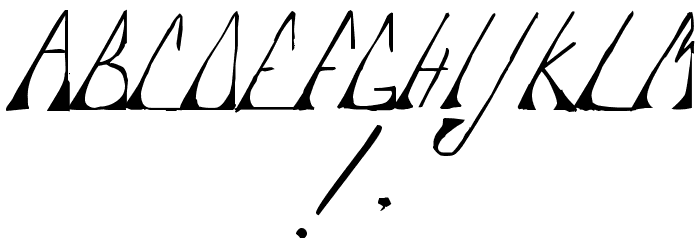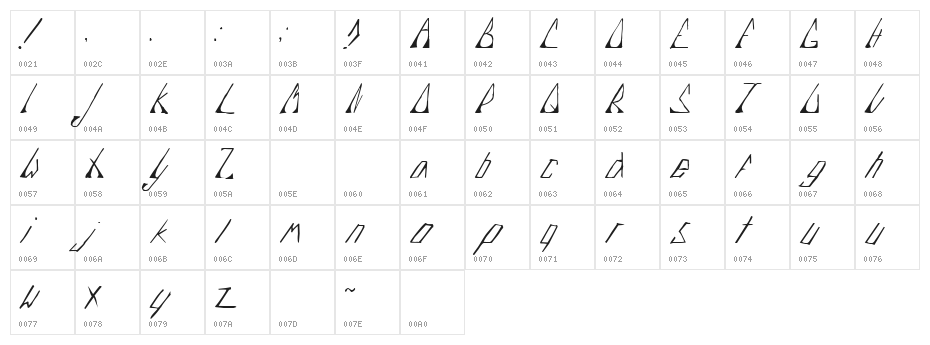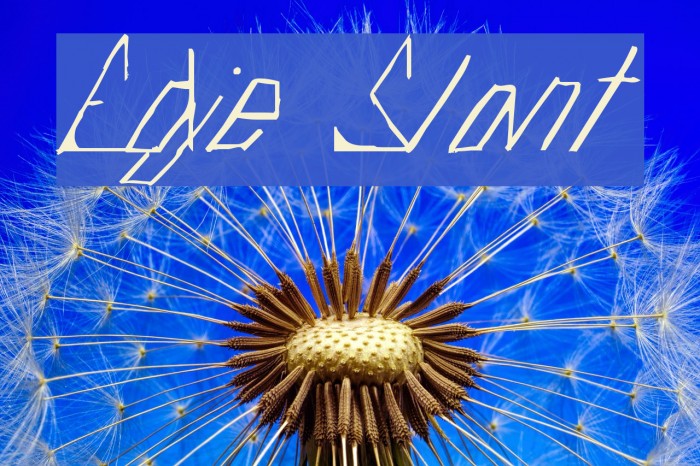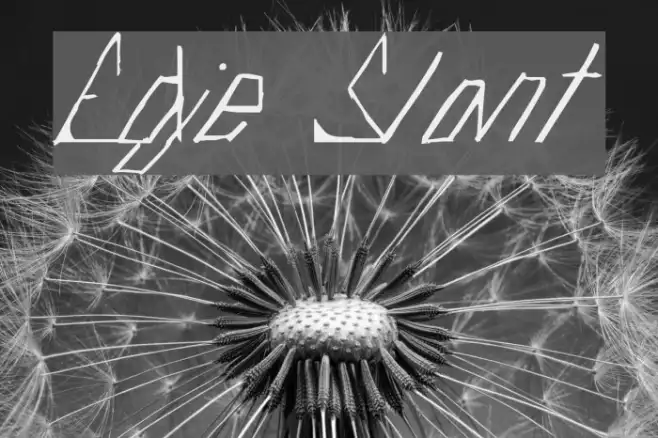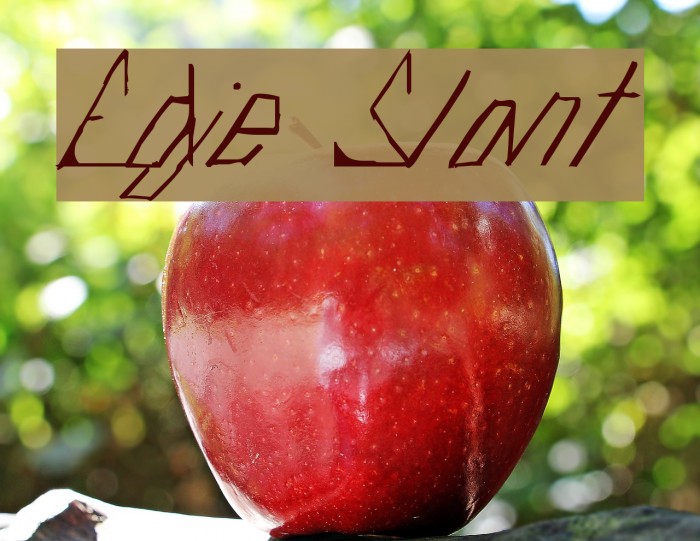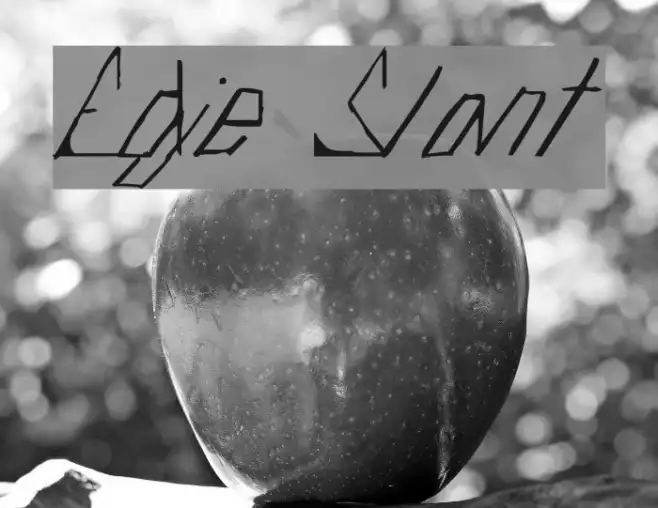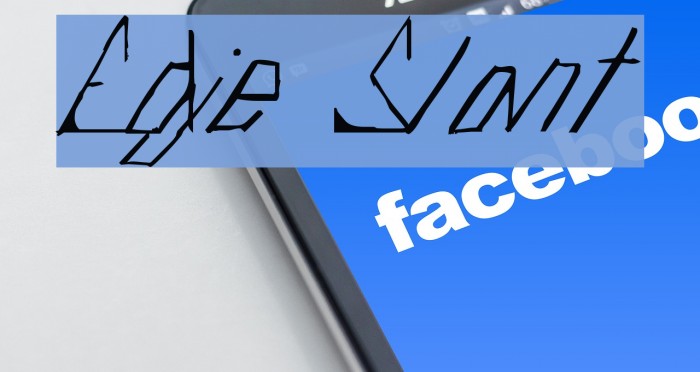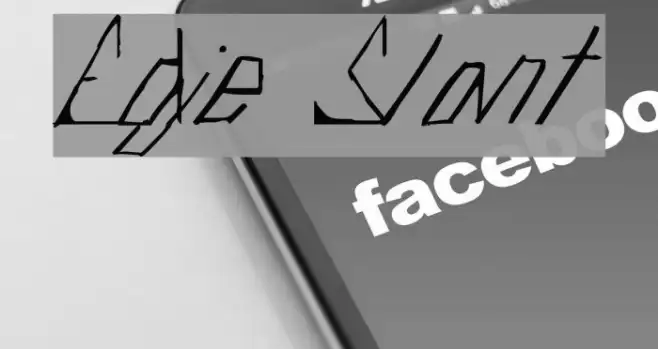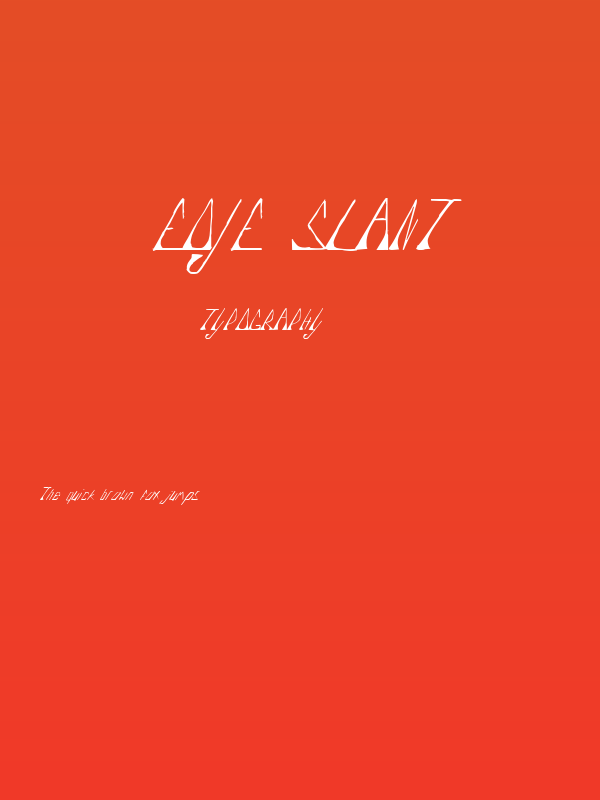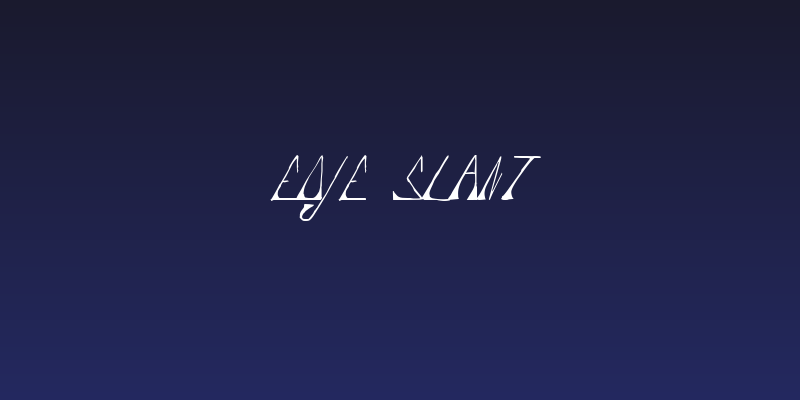
Edje Slant Font
Edje Slant Description
This font exhibits a dynamic and energetic style with a pronounced slant, giving it a sense of motion and urgency. The characters are elongated and angular, with sharp edges and a distinctive flair that suggests a handwritten quality. The uppercase and lowercase letters maintain a consistent slant, enhancing the cohesive look of the typeface. The strokes vary in thickness, adding a touch of contrast that emphasizes the font's boldness. This font is particularly striking in its ability to convey a sense of speed and modernity, making it suitable for projects that require a contemporary and edgy aesthetic.
| Proposed Projects | Ideal for branding, advertising, and editorial design where a modern, energetic feel is desired. |